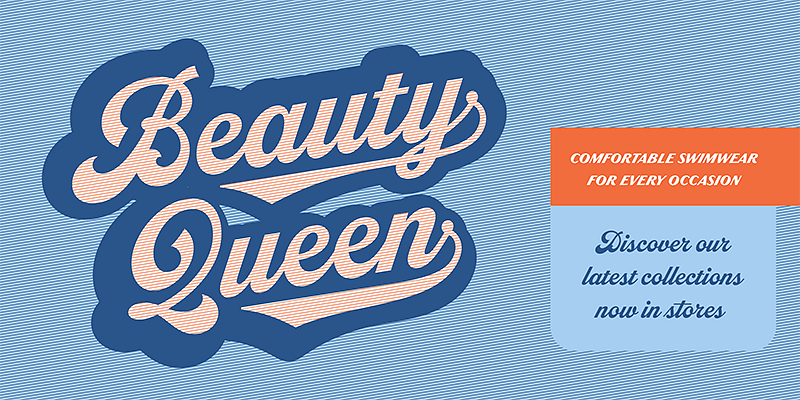
Dreamboat Font Free Download is a charming, playful script typeface that exudes a sense of whimsy and fun. With its flowing, elegant curves and expressive letterforms, this font is perfect for creating lighthearted designs that require a personal, hand-lettered touch. Ideal for branding, invitations, social media graphics, and any creative project that needs a bit of flair.
Dreamboat Font Free Download features smooth, rounded strokes and artistic flourishes, offering a stylish and friendly aesthetic that works well for both casual and sophisticated projects. It pairs well with minimalistic sans-serif fonts or other handwritten scripts, making it versatile for a variety of design applications.
Whether you're designing for an event, a lifestyle brand, or simply creating engaging social media content, Dreamboat brings a joyful, distinctive character to your typography.